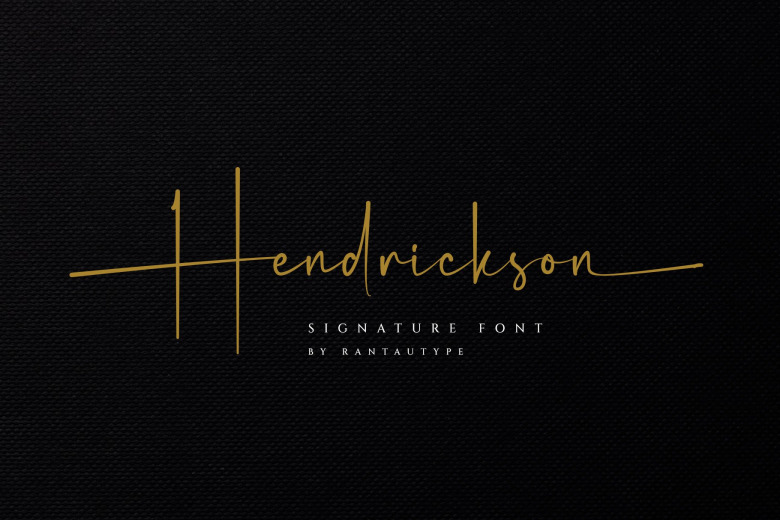
Hendrickson Font
Hendrickson is an unique handwritten font. Whether you’re using it for crafting, digital designing, presentations, or greeting card making, it’s perfect! It’s designed and shared by Rantautype.
Hendrickson is the great choice for watermark on photography, signature or signature logo design, quotes, album cover, magazine, business card and many other design project. Hendrickson here to make your work to high level!!!